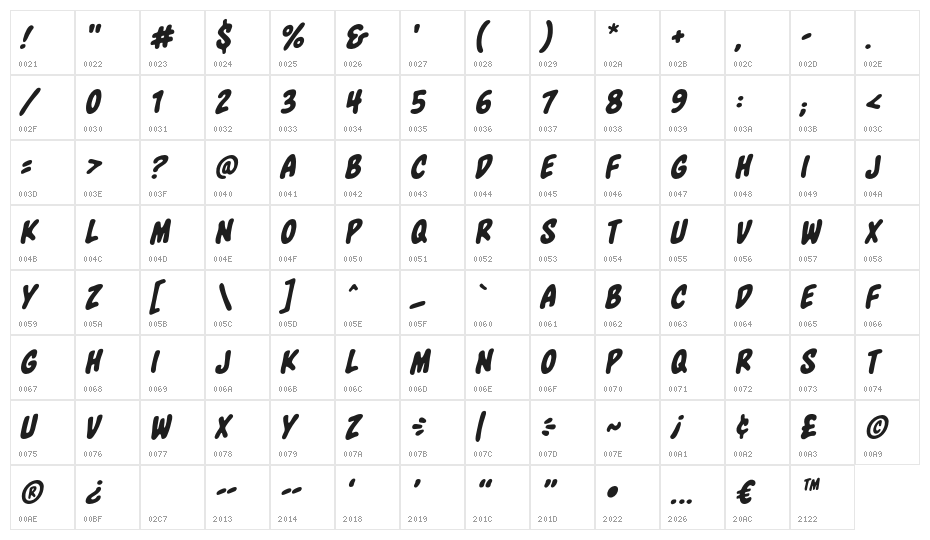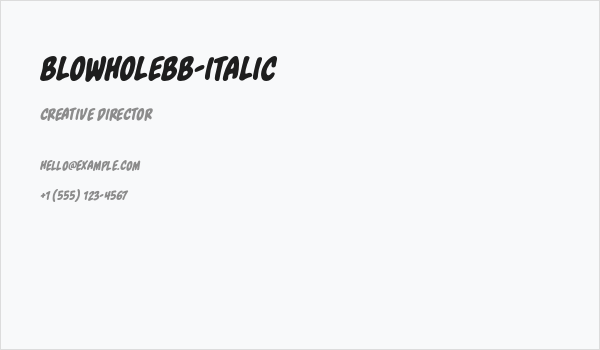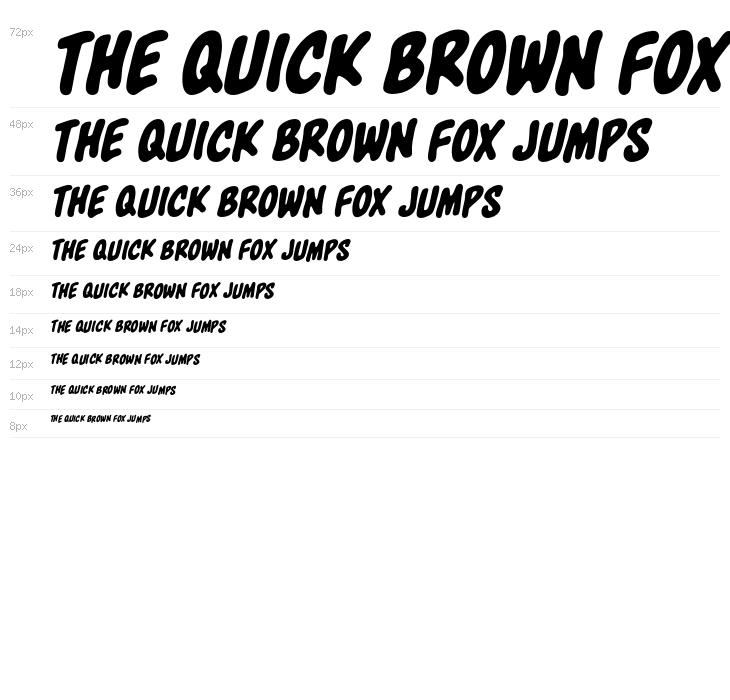
BlowholeBB-Italic Font
BlowholeBB-Italic Description
This font features a bold and dynamic style with a playful and energetic appearance. The letters are rounded and slightly slanted, giving them a sense of movement and fluidity. The strokes are thick and consistent, creating a strong visual impact. The characters are closely spaced, enhancing the compact and cohesive look. This font is ideal for projects that require a lively and informal touch, such as posters, advertisements, and branding materials. Its boldness and unique style make it stand out, capturing attention and conveying a sense of fun and creativity.
Overall StylePlayful
Proposed ProjectsPerfect for posters, advertisements, branding, and any project needing a lively touch.